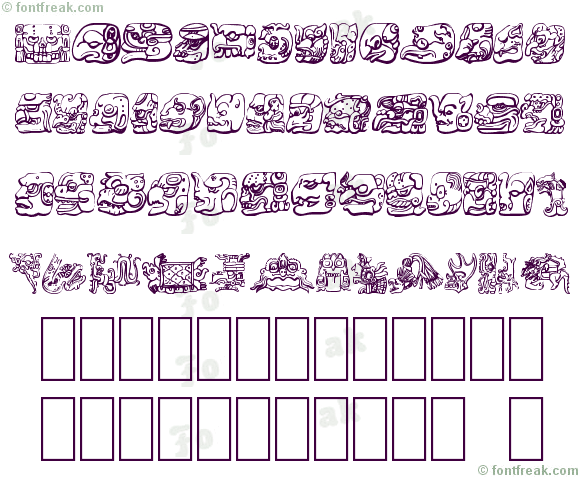
Mayan
The Mayan font by Listemageren is a striking decorative typeface that draws inspiration from the ancient Mayan civilization. Released in 1997, this unique font exhibits a distinctive visual style characterized by intricate, tribal-like glyphs that evoke a sense of history and culture. The design features varying stroke weights that create a rhythmic flow, complemented by a high contrast between thick and thin lines. The spacing is thoughtfully crafted to enhance readability while still maintaining an artistic flair, making it suitable for various creative projects.
This font is particularly well-suited for use in contexts that require an exotic or culturally rich aesthetic. It can elevate wedding invitations, giving them a touch of uniqueness and elegance. Additionally, the Mayan font works wonderfully on movie posters, especially those that delve into themes of history or adventure. Restaurant menus featuring cuisine inspired by Latin or Central American dishes can benefit from its cultural resonance. Moreover, it can serve as a bold choice for branding in small businesses that aim to convey a distinctive identity.
Targeting graphic designers, small business owners, and content creators, the Mayan font provides a versatile tool for those looking to make a memorable impact. Its unique characteristics allow it to stand out in both print and digital media, ensuring that any project enhanced by this font will capture attention and pique interest.
In conclusion, the Mayan font not only serves as a visual representation of a rich cultural heritage but also offers a modern twist that aligns with contemporary design trends. With the opportunity for a Mayan font free download, designers can easily incorporate this captivating typeface into their work, making it a valuable addition to any creative toolkit.